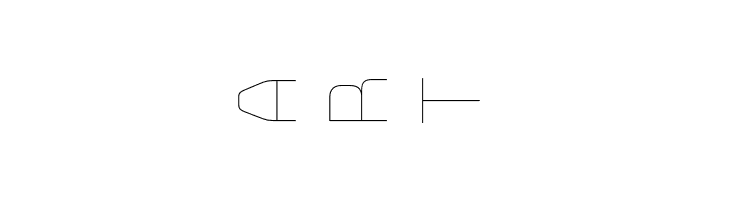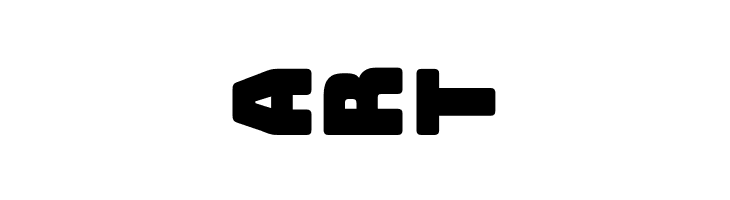
A bold, playful font with thick, rounded letterforms and strong geometric shapes.
A bold, playful font with thick, rounded characters ideal for eye-catching displays.
A geometric, minimalist font with thin, hairline strokes and a modern aesthetic.
A bold, inline font with a geometric and decorative style.
A modern, geometric inline font with clean lines and sharp angles.
A bold, playful font with rounded, geometric characters.
A bold, geometric font with rounded edges and a modern, playful style.
A geometric, rotated inline font with a playful and modern design.
A bold, geometric font with a rotated outline effect and modern style.
A bold, geometric font with rotated characters for a modern, playful look.